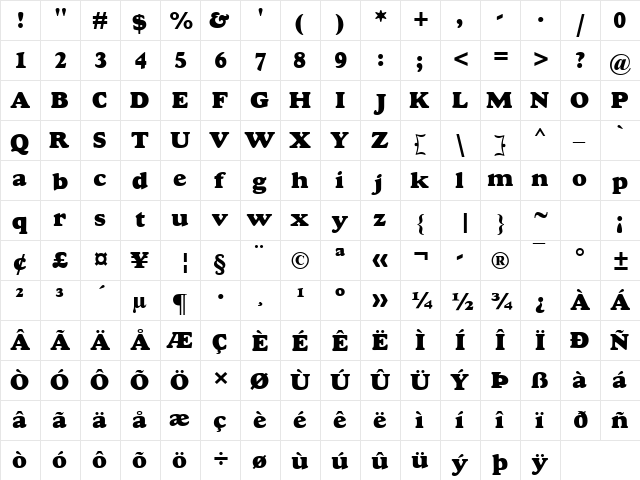
Goudy MT Extra Bold Regular Font Preview
Goudy MT Extra Bold Regular
Goudy MT Extra Bold Regular Font Details
Design Context for Goudy MT Extra Bold Typeface
Goudy MT Extra Bold takes a measured approach to typography — its balanced proportions and neutral character make it a reliable workhorse for both digital and print work. The heavy weight commands attention and anchors typographic hierarchies.